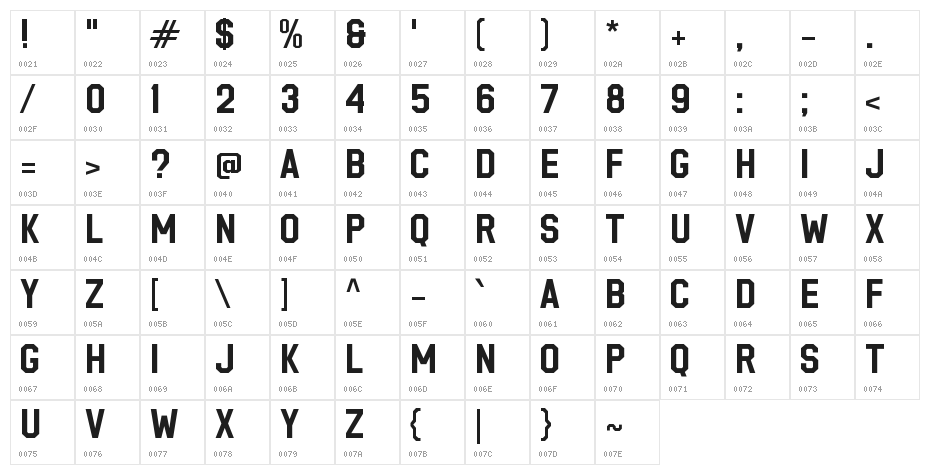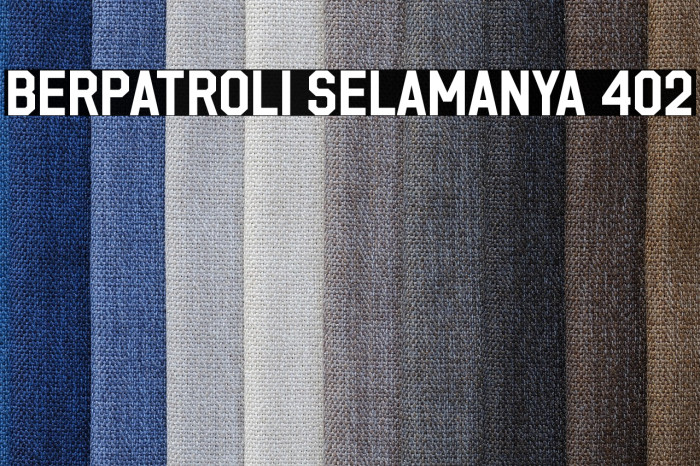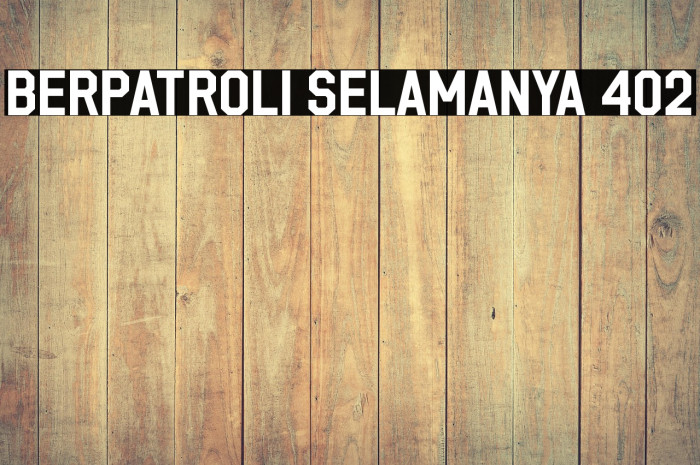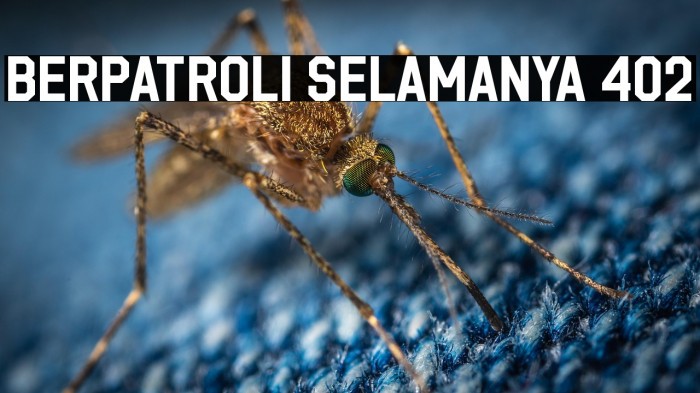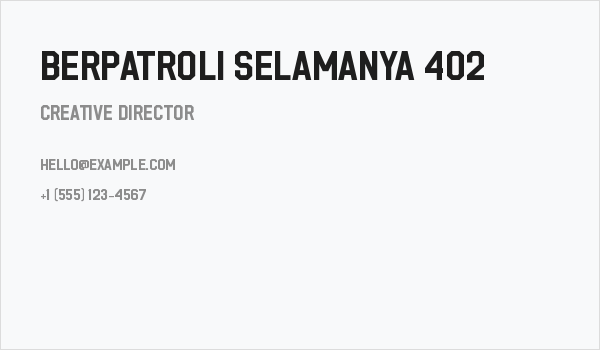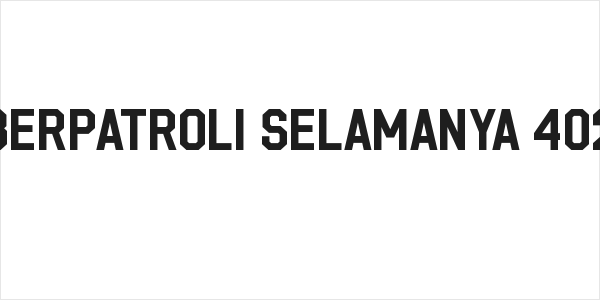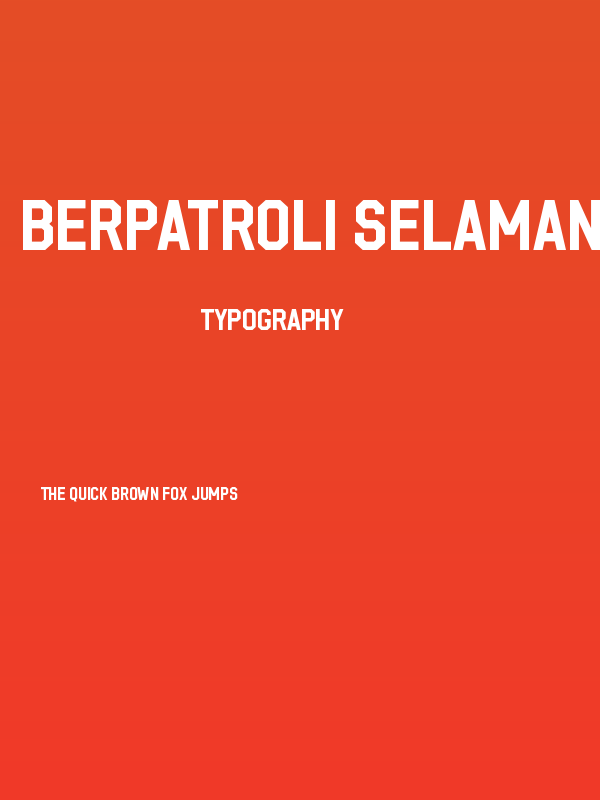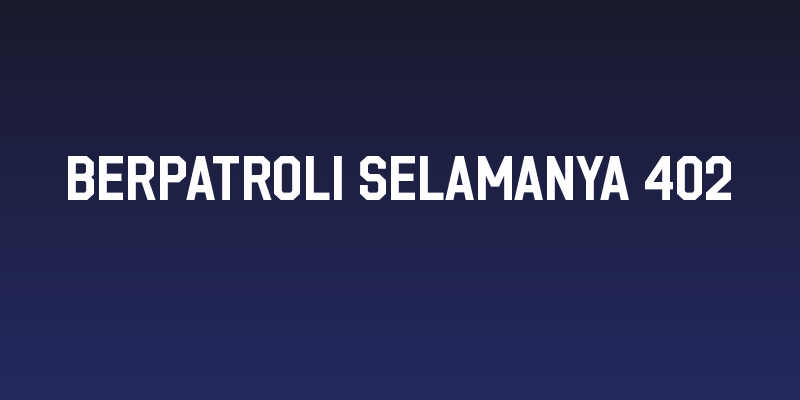
Berpatroli Selamanya 402 Font
Berpatroli Selamanya 402 Description
This font features a bold, geometric design with strong, angular lines and a modern aesthetic. The uppercase letters are uniform in height, with a consistent stroke width that conveys a sense of strength and stability. The numerals and special characters maintain the same boldness, ensuring a cohesive look across all text. The font's design is reminiscent of industrial or sports-themed typography, making it suitable for impactful and attention-grabbing applications. Its clear and legible style is ideal for creating a strong visual presence.
| Proposed Projects | Ideal for sports branding, posters, headlines, and any project requiring a strong visual impact. |